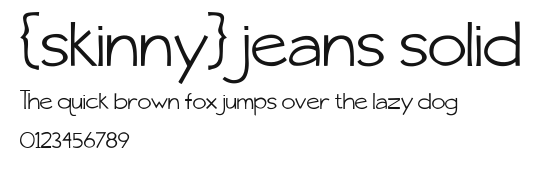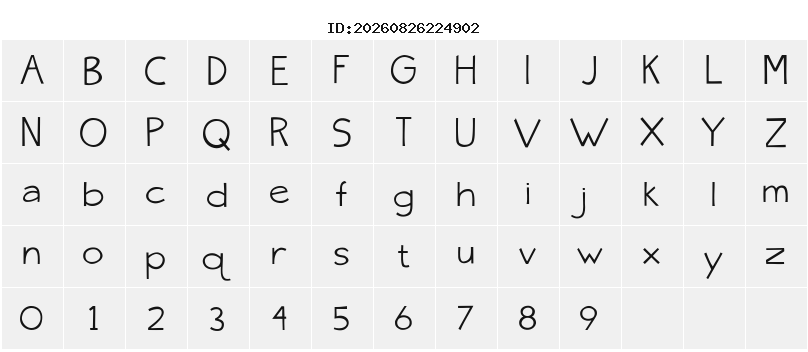
{skinny} jeans solid Preview
• Font Name: {skinny} jeans solid
• Full Font Name: {skinny} jeans solid
• Designer: Brittney Murphy
• Manufacturer: Brittney Murphy
About {skinny} jeans solid.ttf
{skinny} jeans solid.ttf is a modern, elegant sans-serif font designed for ultimate readability and visual harmony. Perfect for branding, headlines, web design, and print materials.